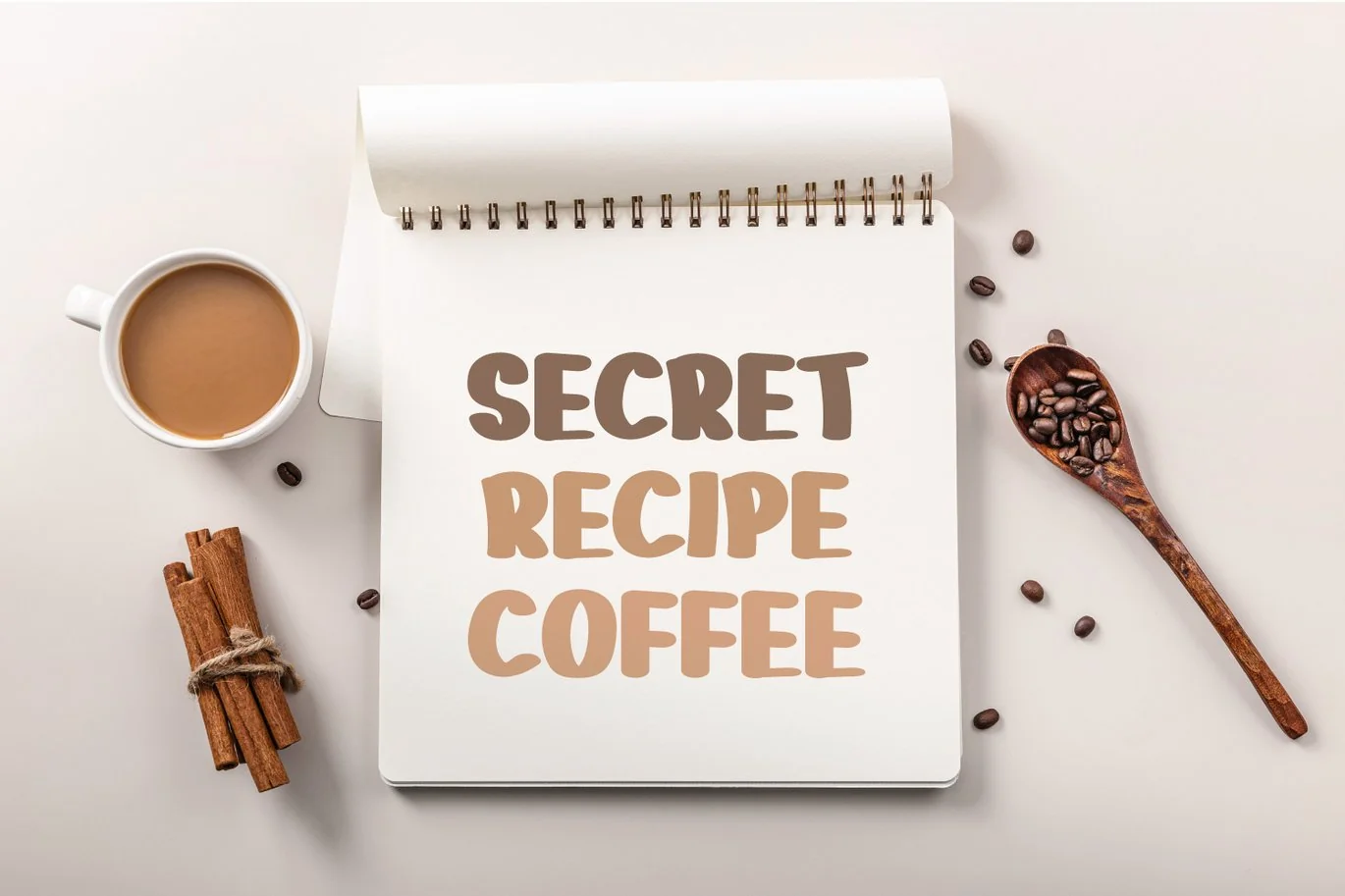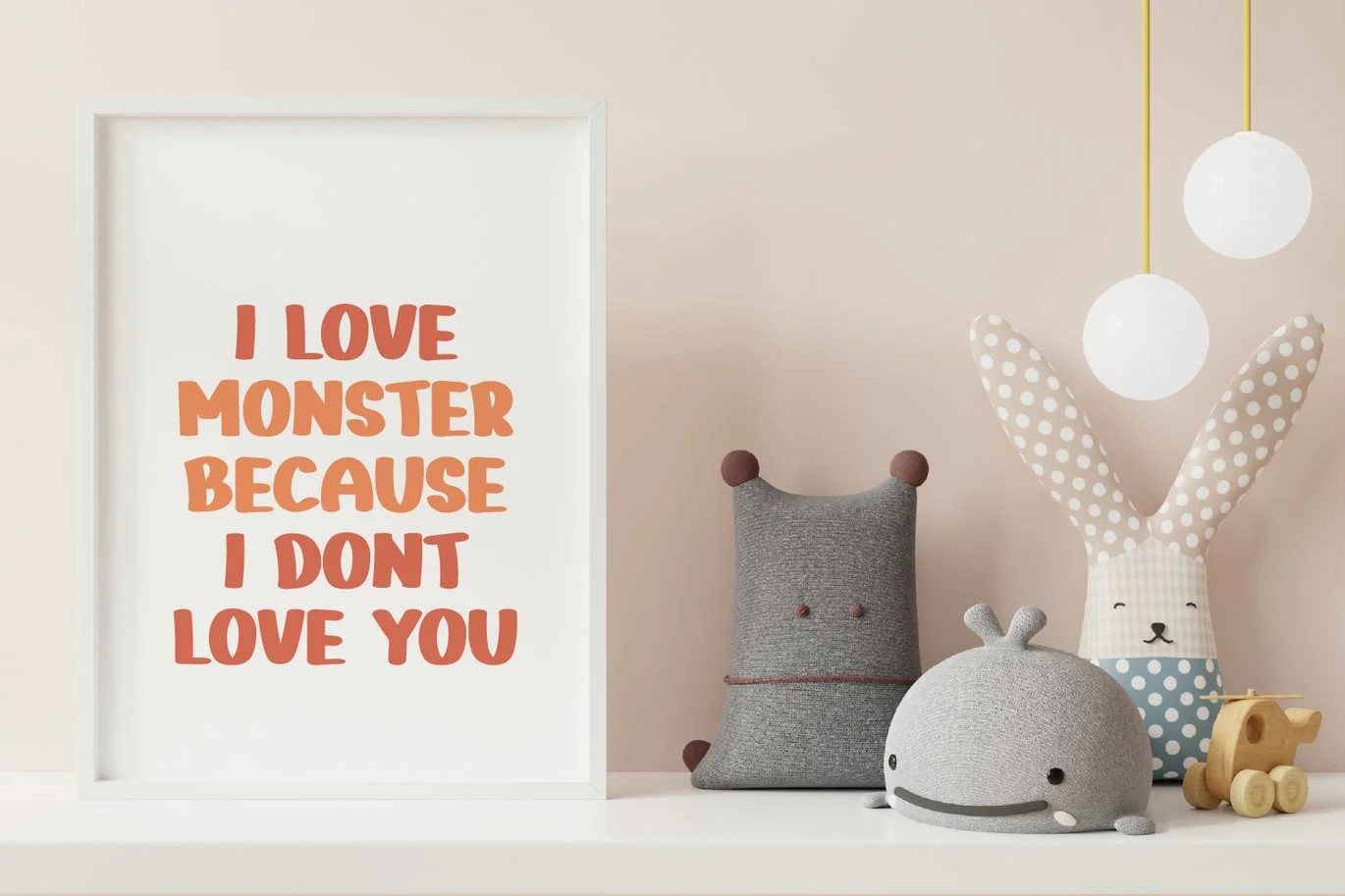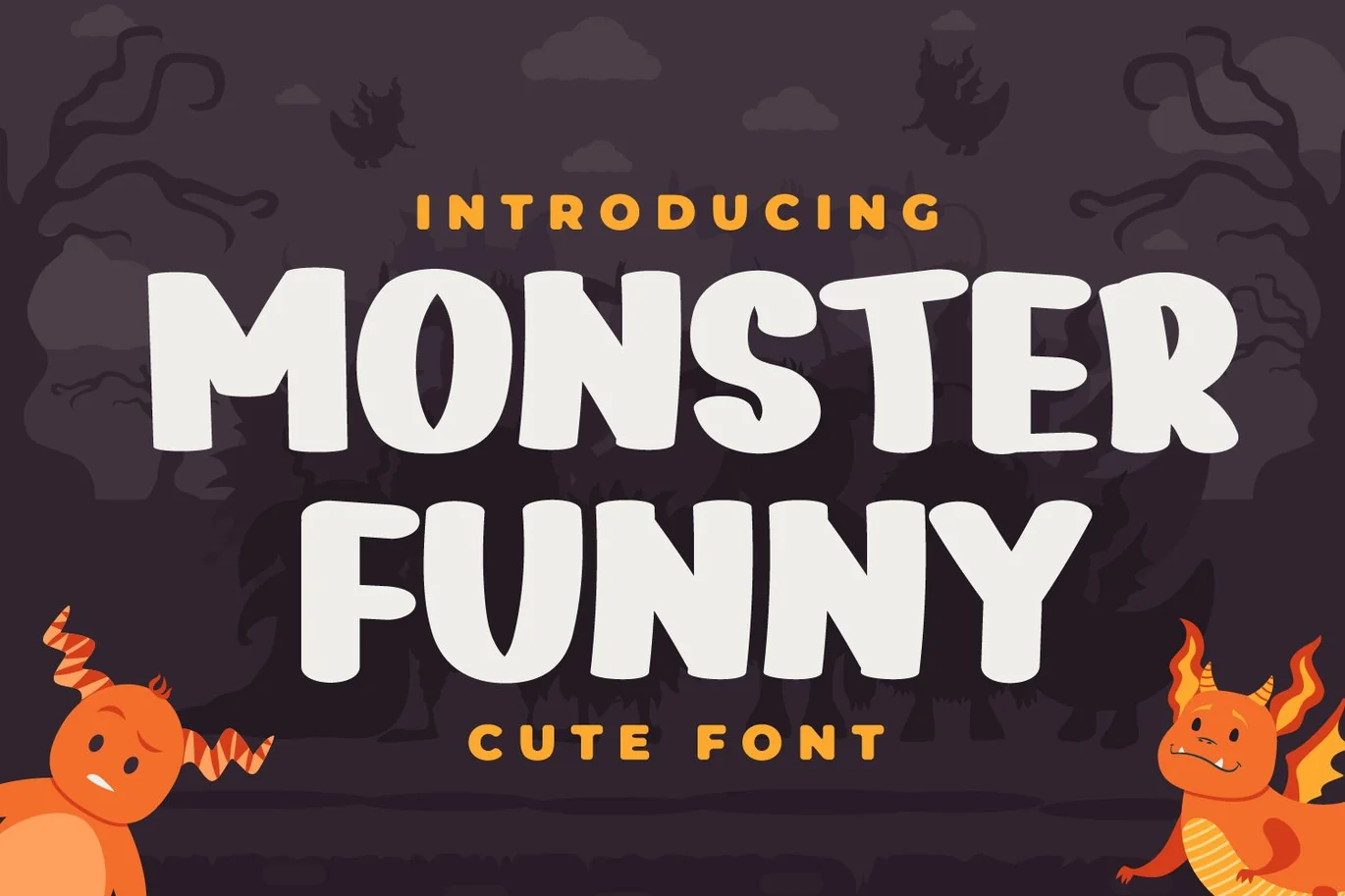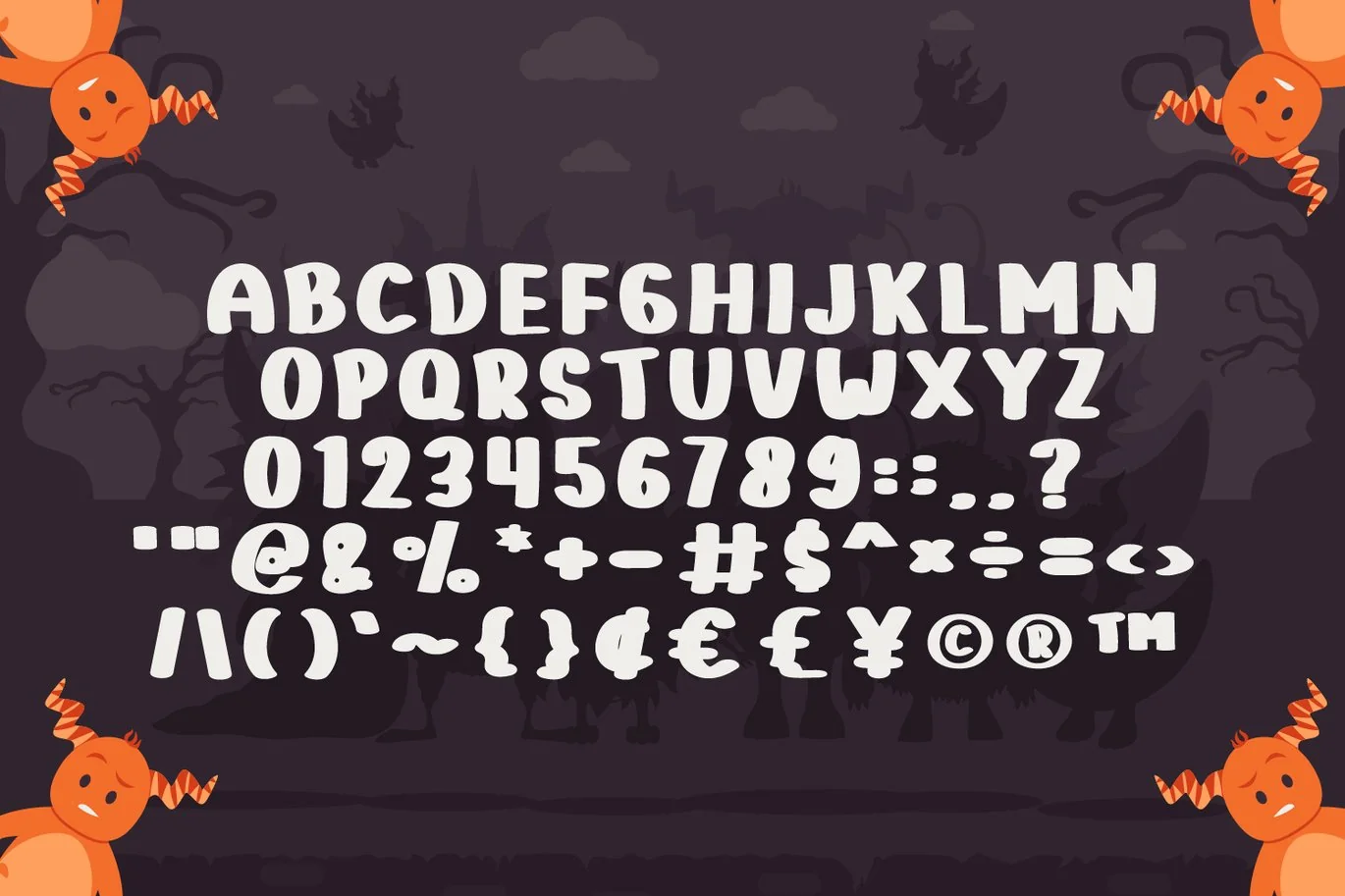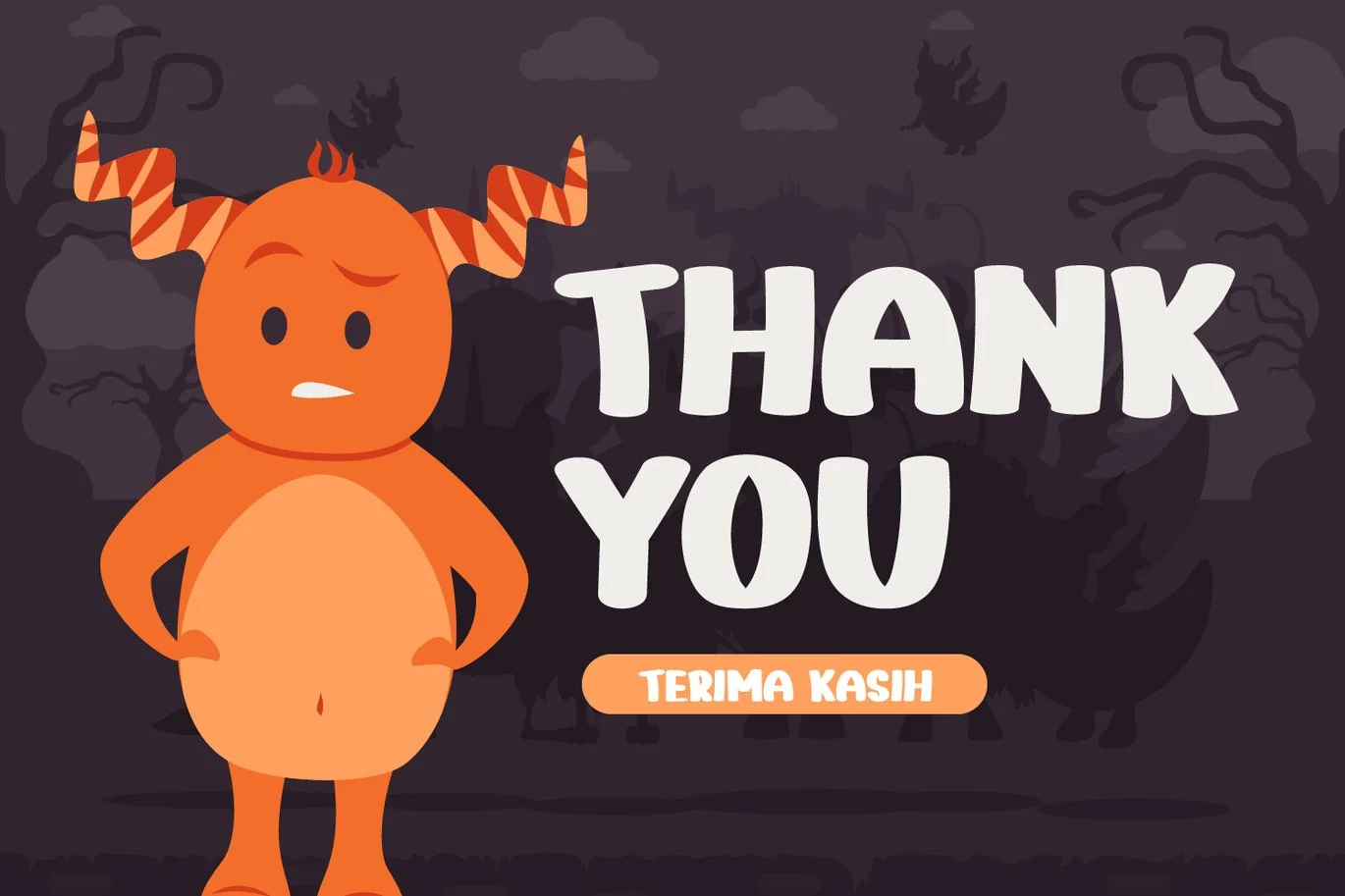
Monster Funny – Cute Display Font
Introducing Monster Funny – Cute Display Font
Monster Funny is a cute and quirky display font. It will add an incredibly joyful touch to your designs. Add this beautiful display font to each of your creative ideas and notice how it makes them stand out!
This font is perfect for quotes, shirt designs, websites, branding, children’s designs, blogs, logos, invitations and more!